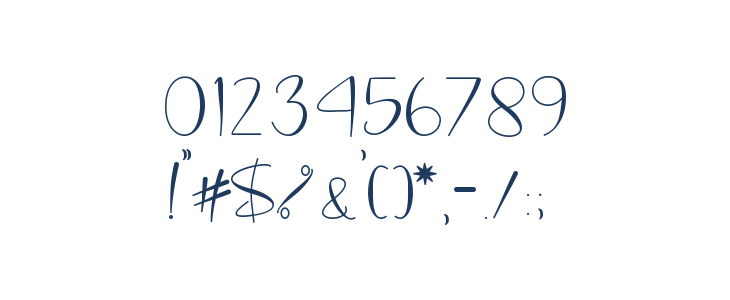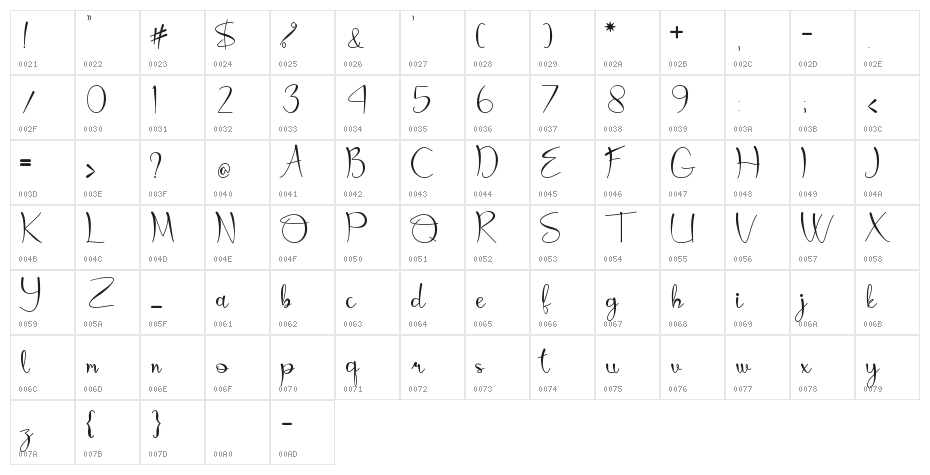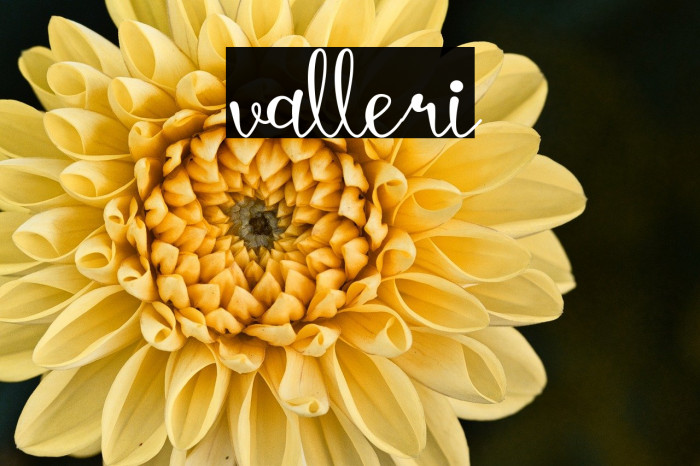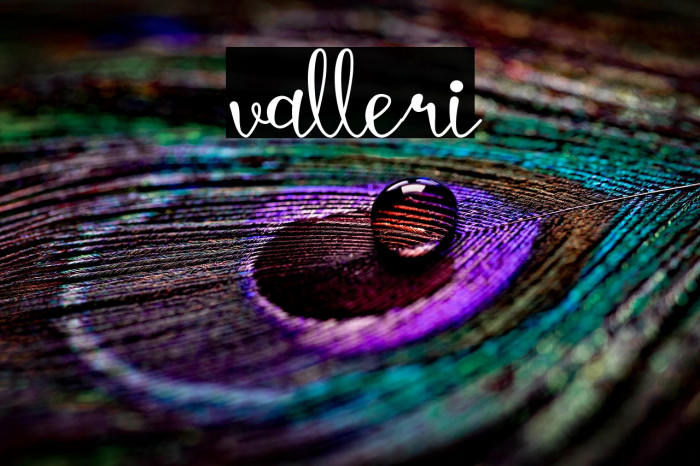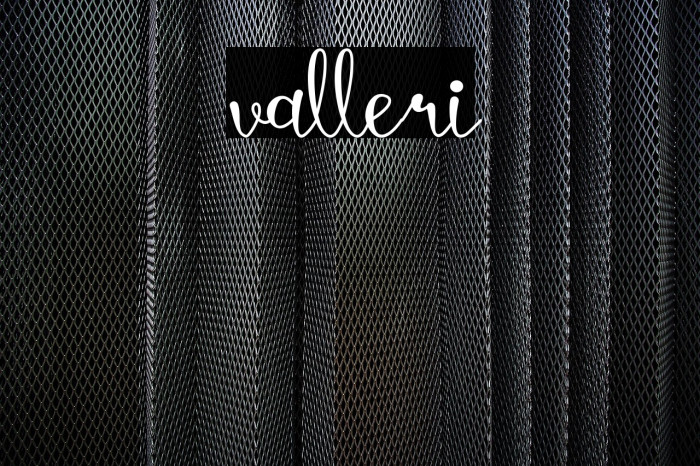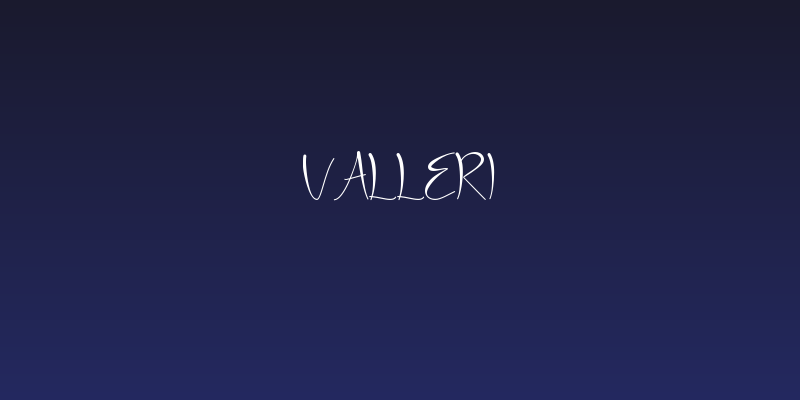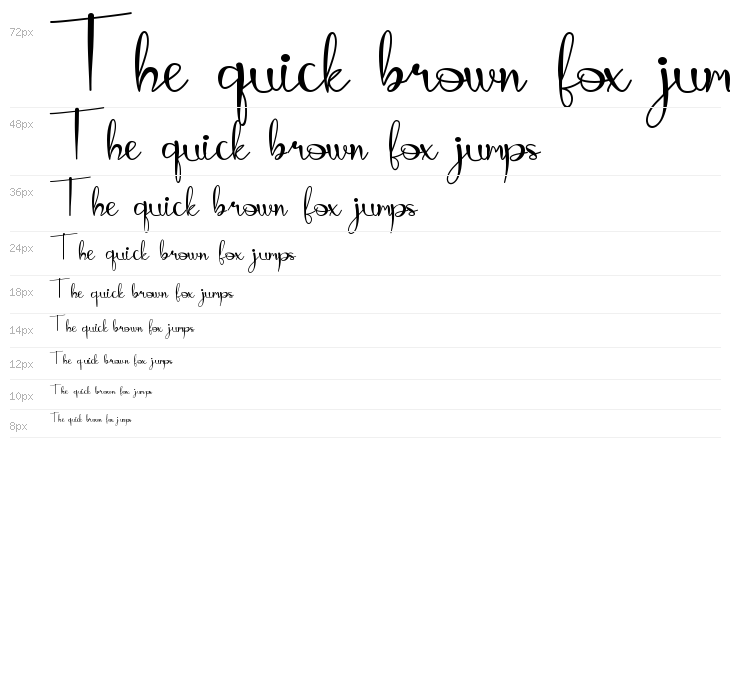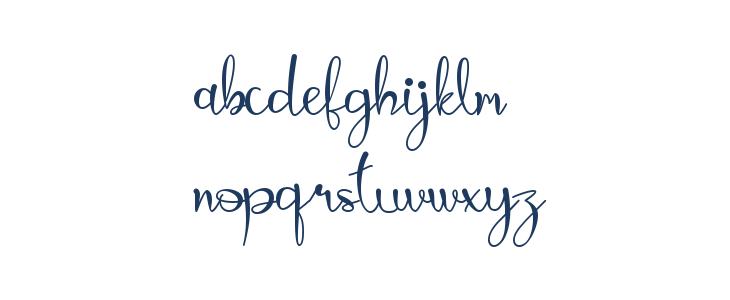
valleri Font
This font features a playful and whimsical script style, characterized by its flowing, handwritten appearance. The uppercase letters are tall and slender with a slight slant, while the lowercase letters are more rounded and connected, giving a casual yet elegant feel. The numerals are consistent with the overall style, maintaining the same fluidity and lightness. Special characters are creatively integrated, adding to the font's charm. The strokes vary in thickness, providing a dynamic and lively contrast that enhances readability and visual interest.
| Use Case | Logos, Invitations, Greeting Cards |
| Proposed Projects | Ideal for invitations, greeting cards, branding projects, and playful editorial designs. |